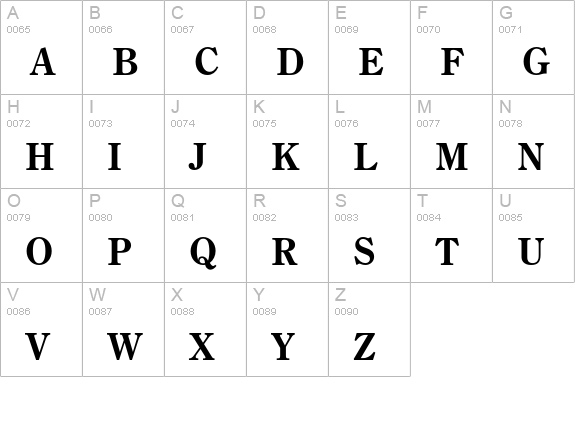
CenturyOldStyleEF-Bold is a strong, high-contrast variant in the CenturyOldStyleEF typeface family \xE2\x80\x94 well suited to headlines, attention-grabbing titles, and strong calls-to-action.
CenturyOldStyleEF-Bold font is a timeless and elegant typeface that exudes sophistication and charm. With its classic design and bold weight, this font is perfect for adding a touch of luxury to any project. Whether you are creating invitations, branding materials, or editorial designs, CenturyOldStyleEF-Bold font will make a lasting impression. Best of all, CenturyOldStyleEF-Bold font is completely free to download at FontsMarket.com. You can easily access this beautiful typeface and use it in your creative endeavors without any cost. Don't miss out on the opportunity to enhance your designs with the stunning CenturyOldStyleEF-Bold font today!